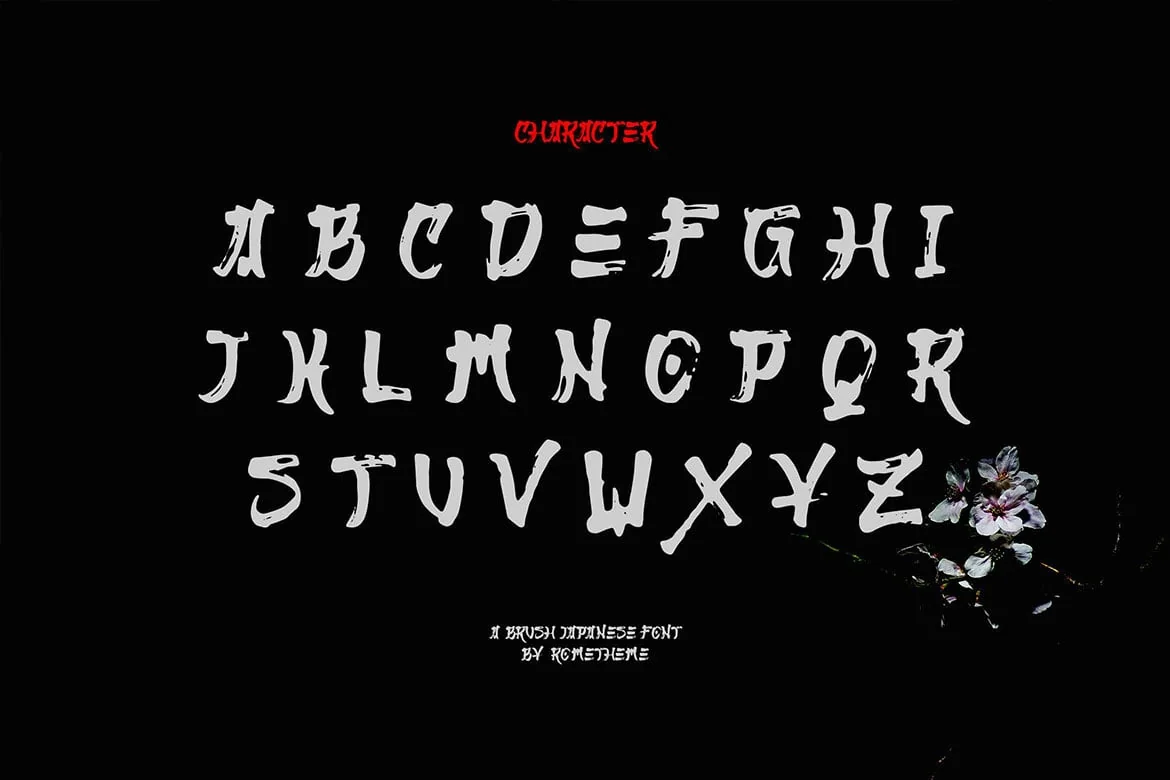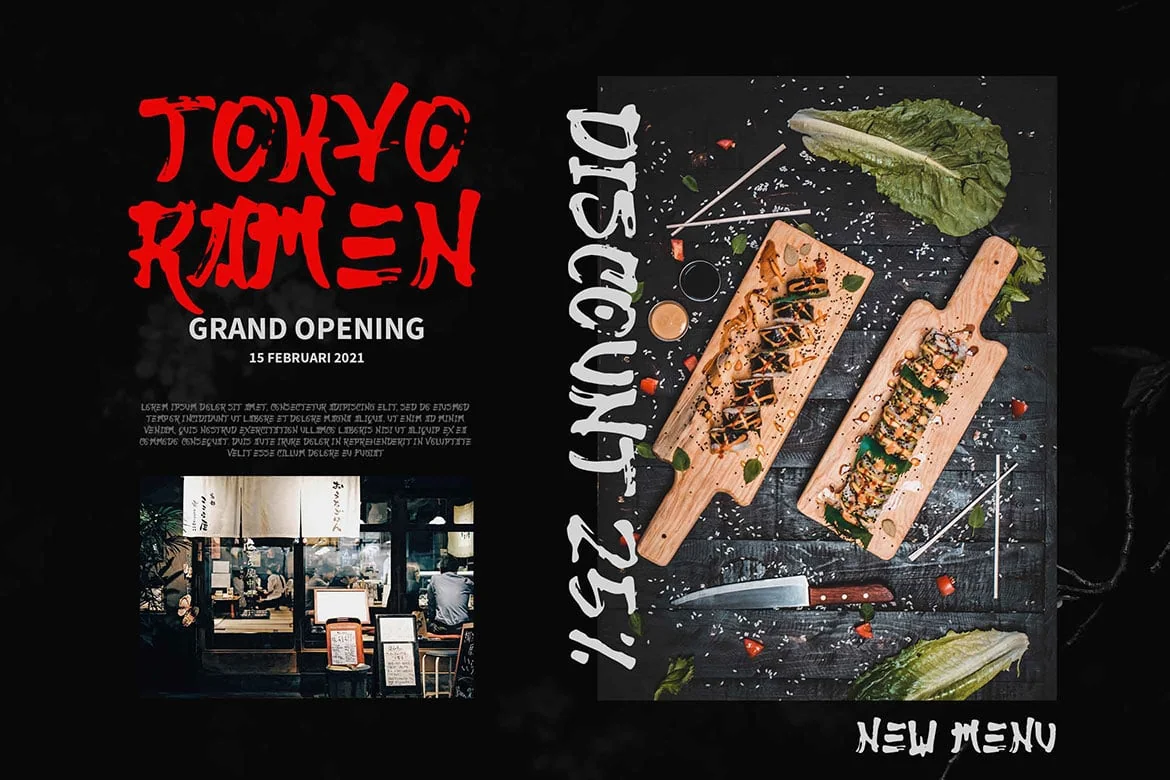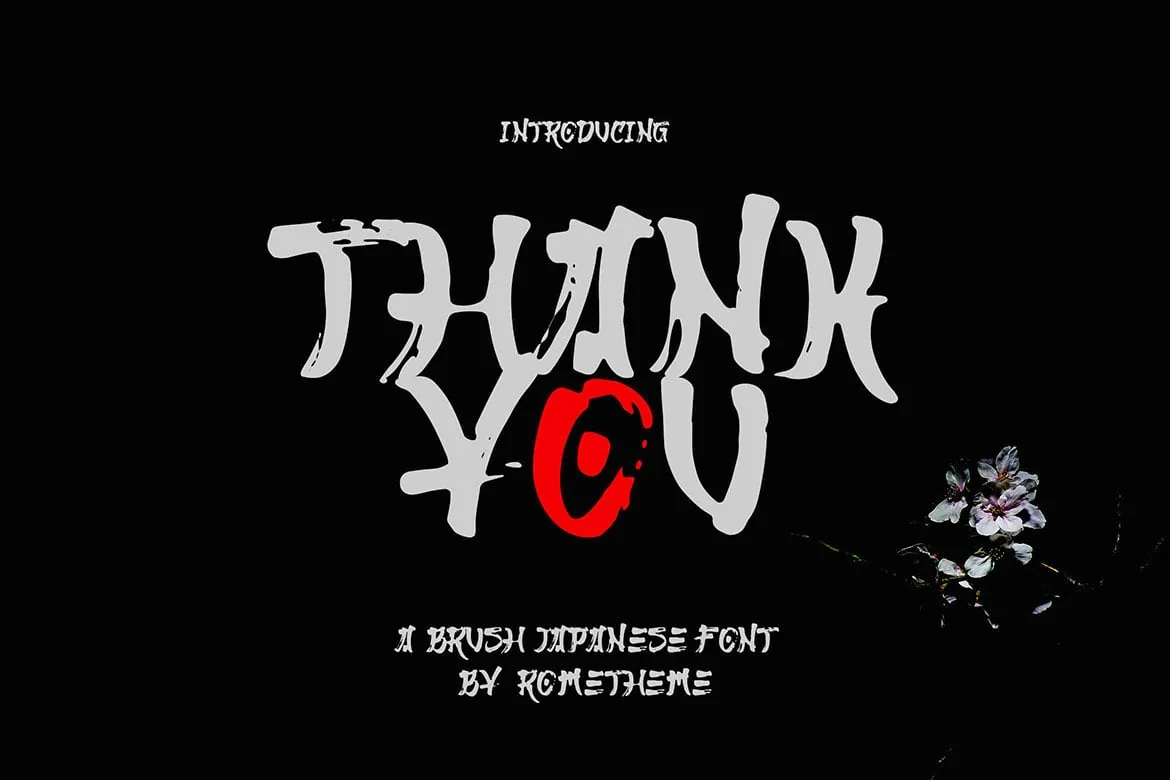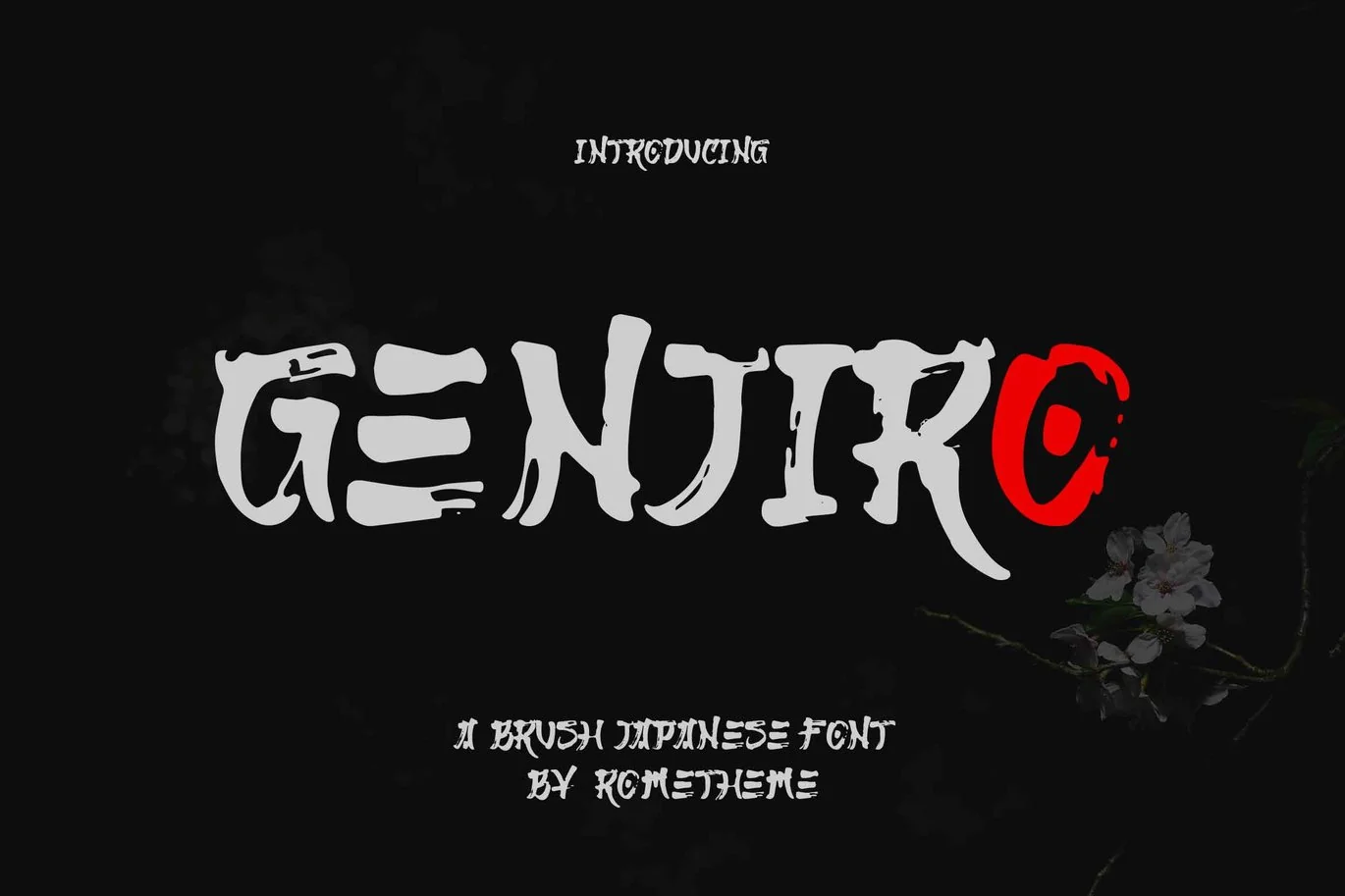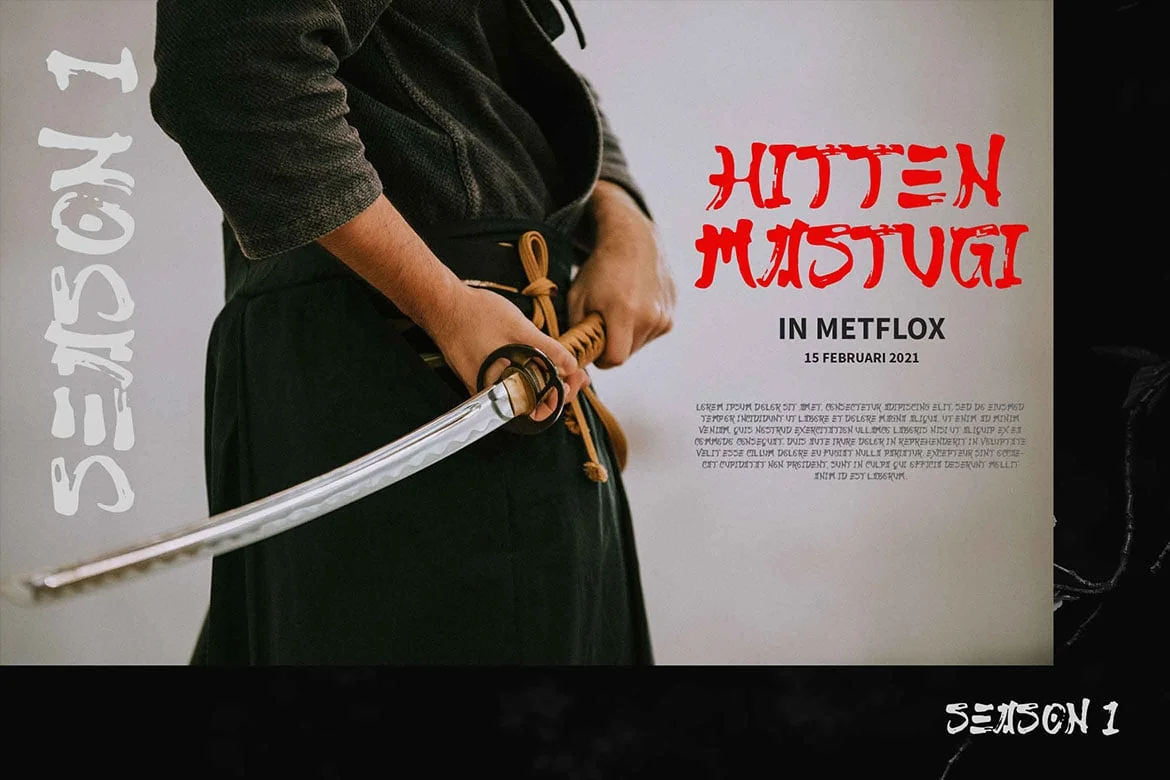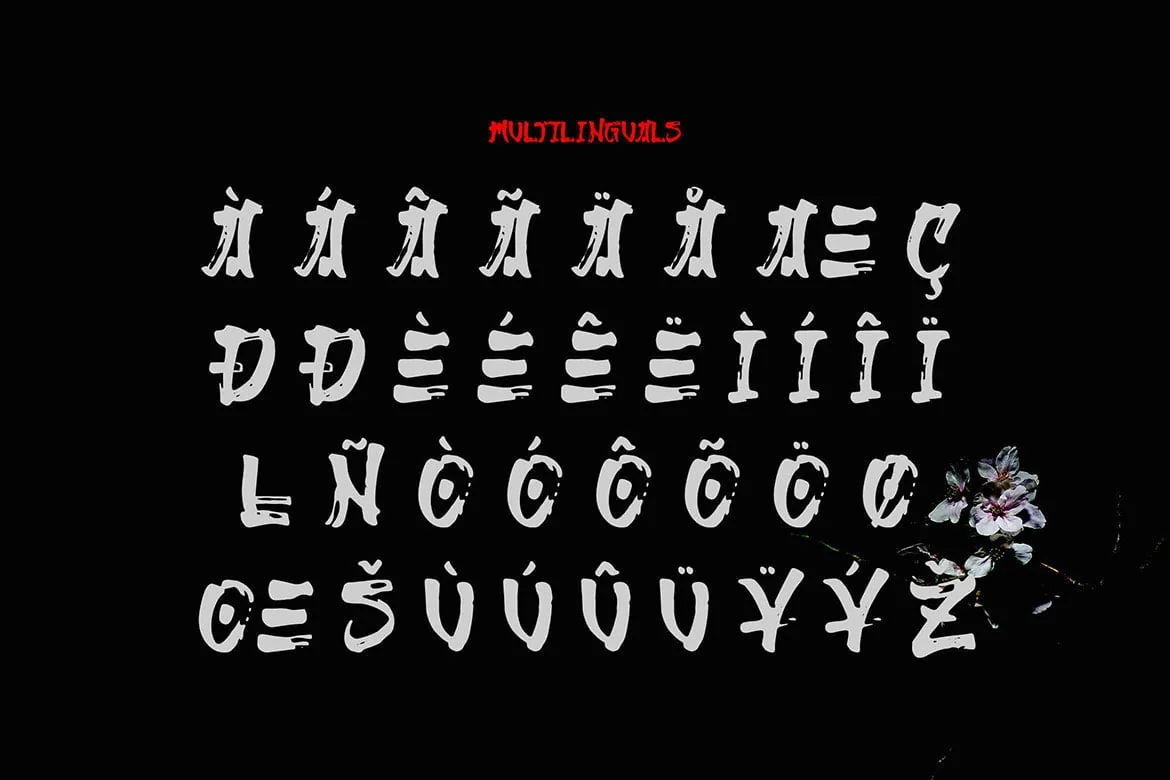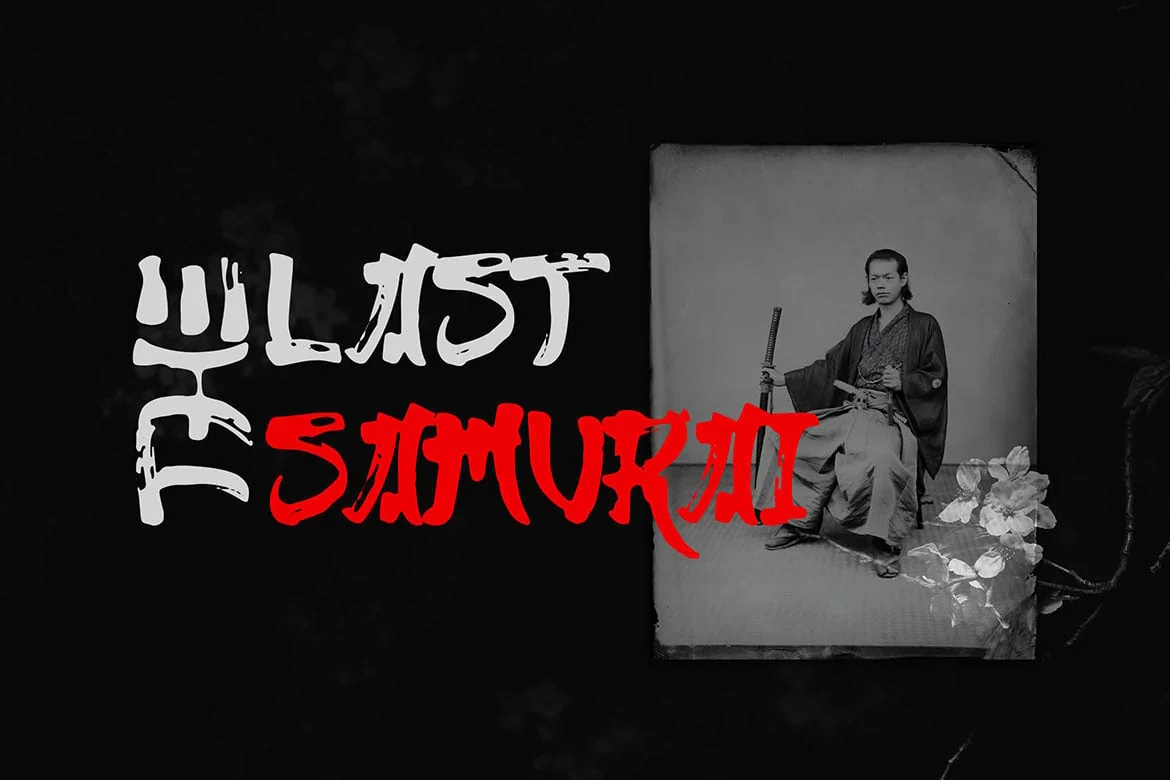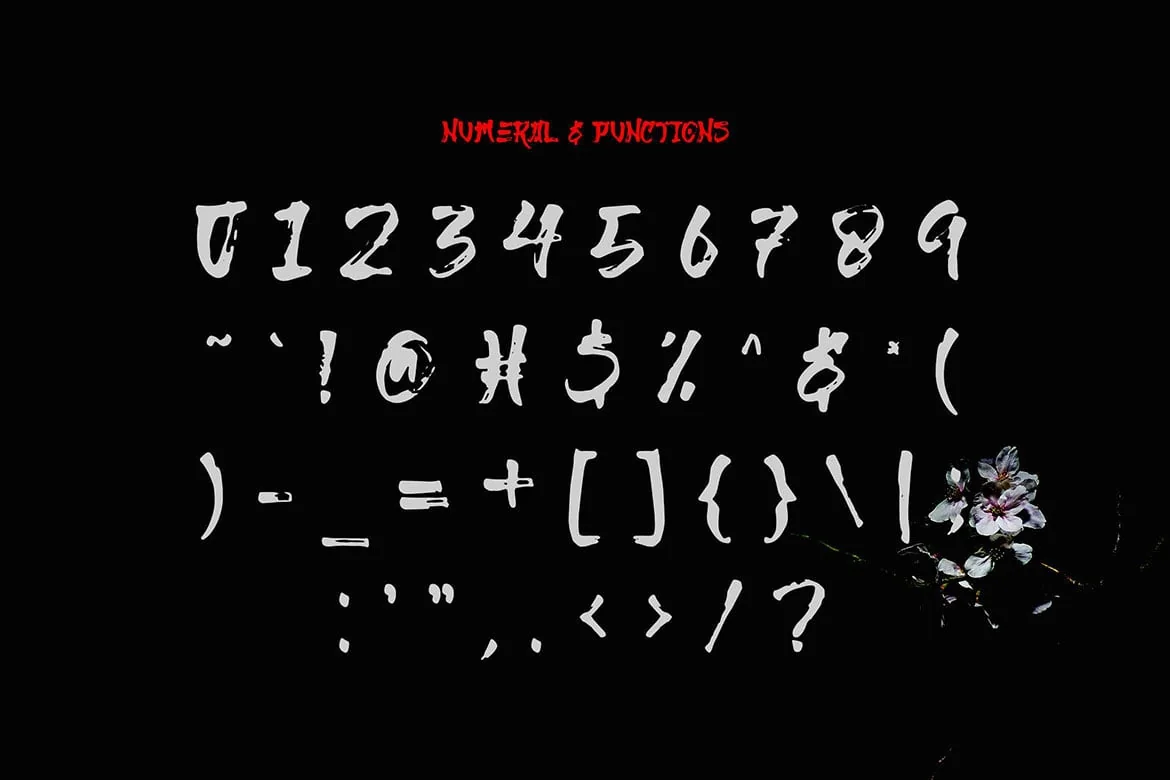
Genjiro – Japanese Display Font
Genjiro is japanese brush font. Fall in love with its incredibly versatile style and use it to create beautiful designs!
Highlight :
- Punctions
- Multilinguals